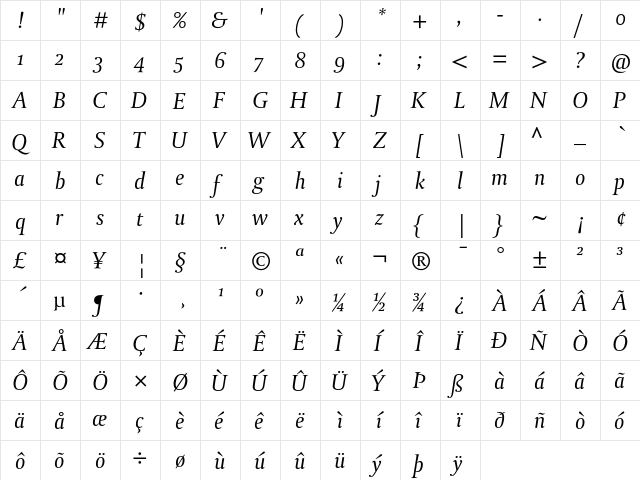
DTLParadoxST Italic Font Preview
DTLParadoxST Italic
Design Context for DTLParadoxST Typeface
DTLParadoxST is a composed and adaptable typeface that performs quietly and consistently across a wide range of design contexts. The dynamic lean of this cut emphasises speed and emphasis in any layout.
Pro Tip: Try DTLParadoxST for annotation and caption copy alongside an upright companion — the contrast in angle creates a dynamic but ordered typographic system.